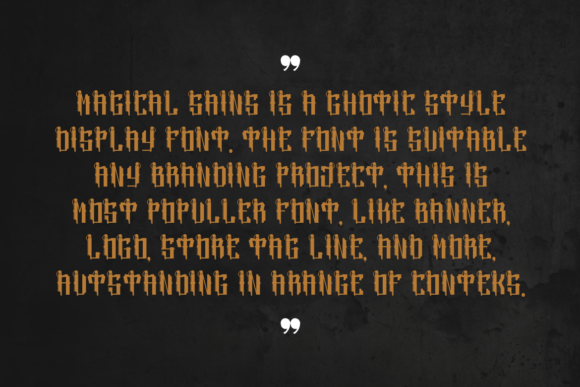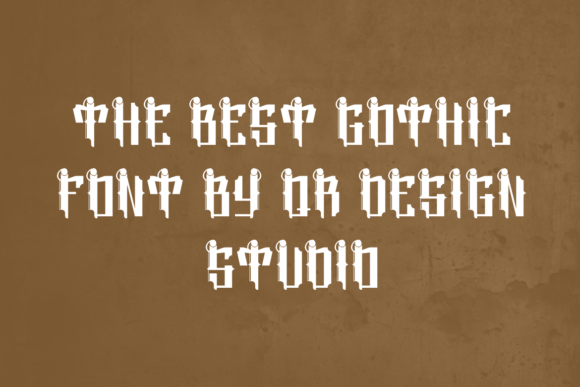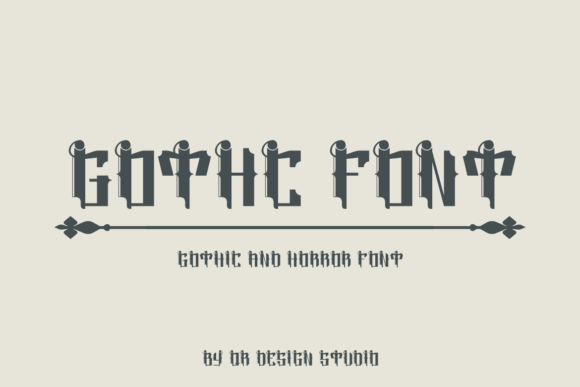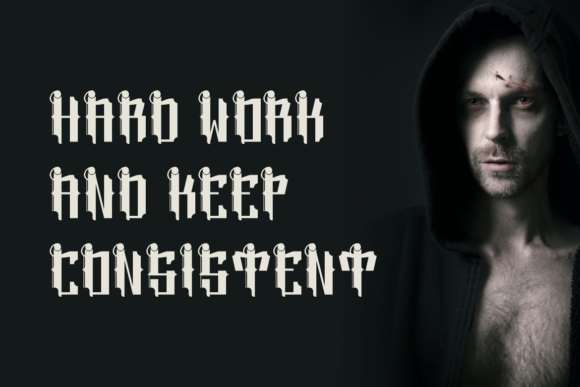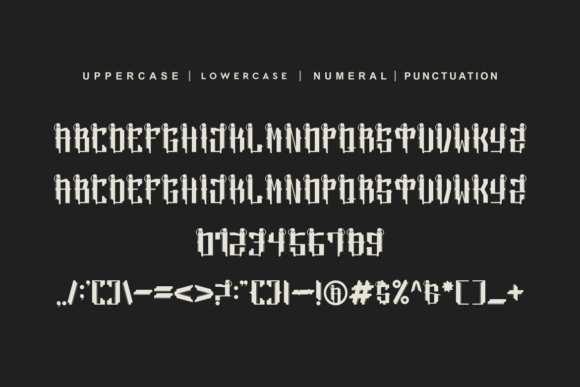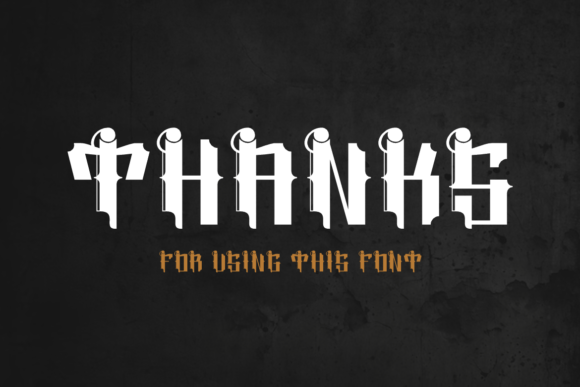
The moment you’re brainstorming ideas for your next creative project and you can’t seem to find the right font to match your vision – that’s when the magic happens. You stumble upon a hidden gem, a game-changer, a font that makes your design dreams come true. For designers like you, finding the perfect font can be a daunting task, but trust us, it’s worth the search. Enter the Magical Sains Font, a bold and authentic display font that’s about to become your new go-to design resource.
This high-quality font is perfect for any branding project, from logos to sports teams, and its versatility shines in a wide range of contexts. With a transparent background and a free download option, you can bring your creative vision to life without any limitations. Whether you’re a seasoned designer or just starting out, the Magical Sains Font is an invaluable addition to your design arsenal, and we’re excited to share its magic with you.
- High-quality design: Magical Sains Font is a meticulously crafted font, perfect for creative projects that demand attention to detail.
- Unique design style: The Magical Sains Font features a distinctive, whimsical design style that sets it apart from other fonts in its category.
I recently stumbled upon the Magical Sains Font and I have to say, it’s been a game-changer for my latest creative project. The high quality of this font has impressed me, and I’m excited to share my thoughts on it.
- Unique and creative design: The Magical Sains Font offers a distinctive style that’s perfect for making your design stand out.
- Limited character set: While the Magical Sains Font is a great addition to any design collection, it’s limited to a relatively small character set.
- No bold or italic options: If you need to emphasize certain text, you’ll need to rely on other fonts or workarounds.
Overall, I’m impressed with the Magical Sains Font, and I’d definitely recommend it to designers looking for a high-quality, unique font for their next creative project.